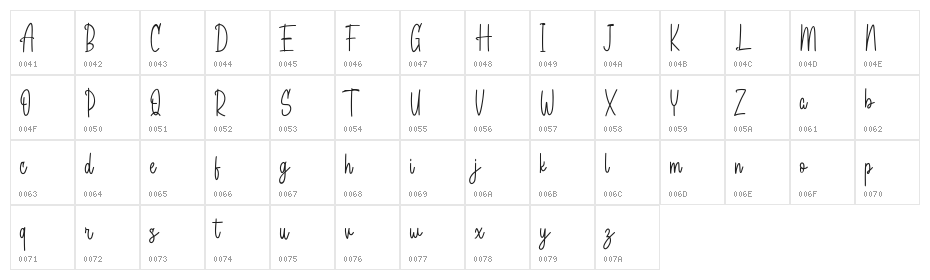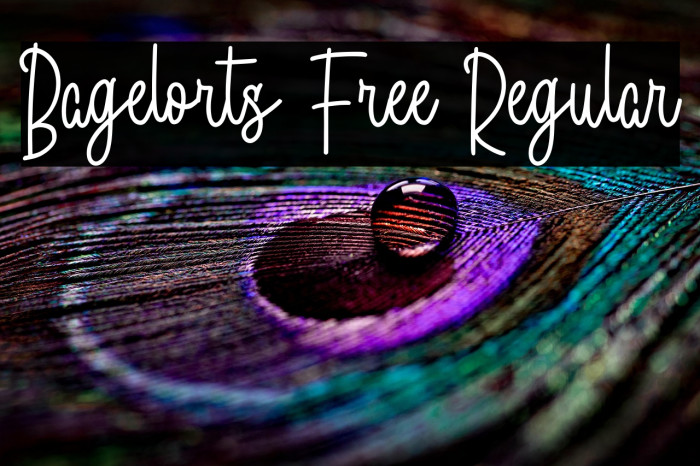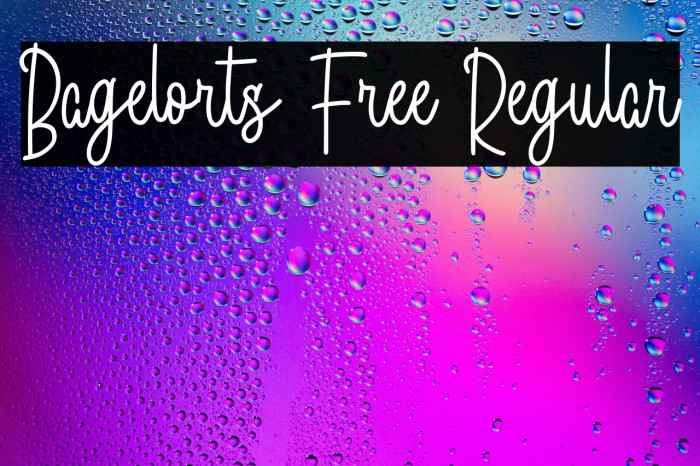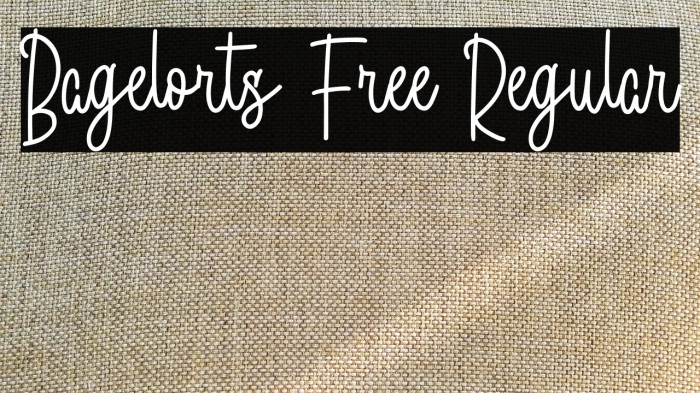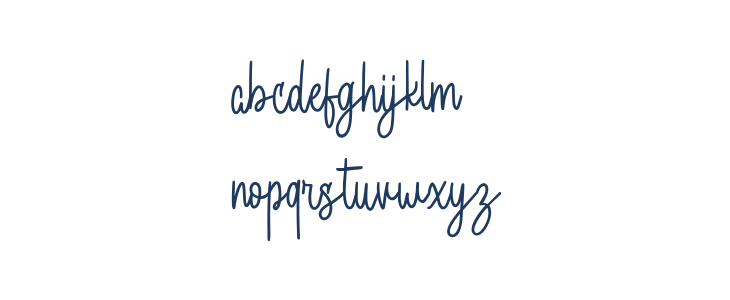
Bagelorts Free Regular Font
Bagelorts Free Regular Description
This font features a playful and casual handwritten style, characterized by its tall, narrow letters with a slight slant. The strokes are consistent in width, giving it a clean and modern look. The uppercase and lowercase letters maintain a cohesive appearance, with rounded edges and a friendly demeanor. The font's informal nature makes it suitable for projects that require a personal touch, such as invitations, greeting cards, or social media graphics. The characters are well-spaced, allowing for easy readability while maintaining a unique and engaging aesthetic.
Proposed ProjectsIdeal for invitations, greeting cards, social media graphics, and personal branding.